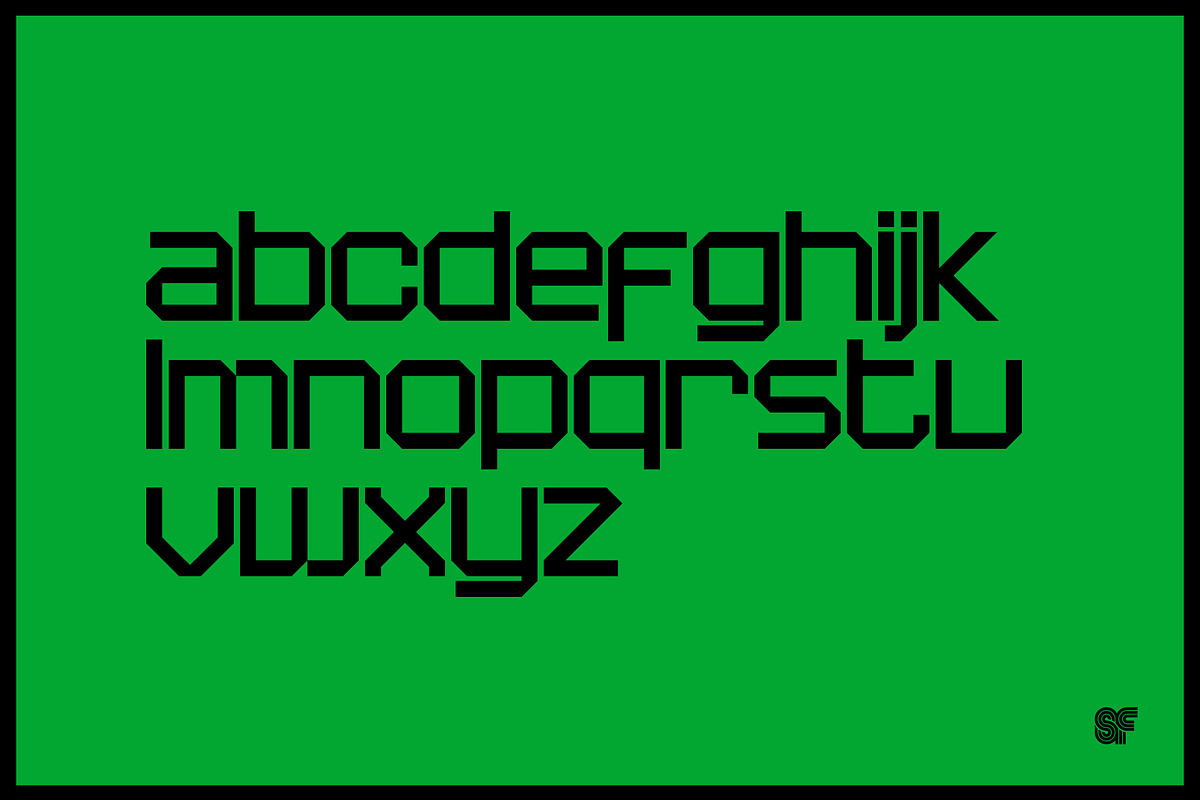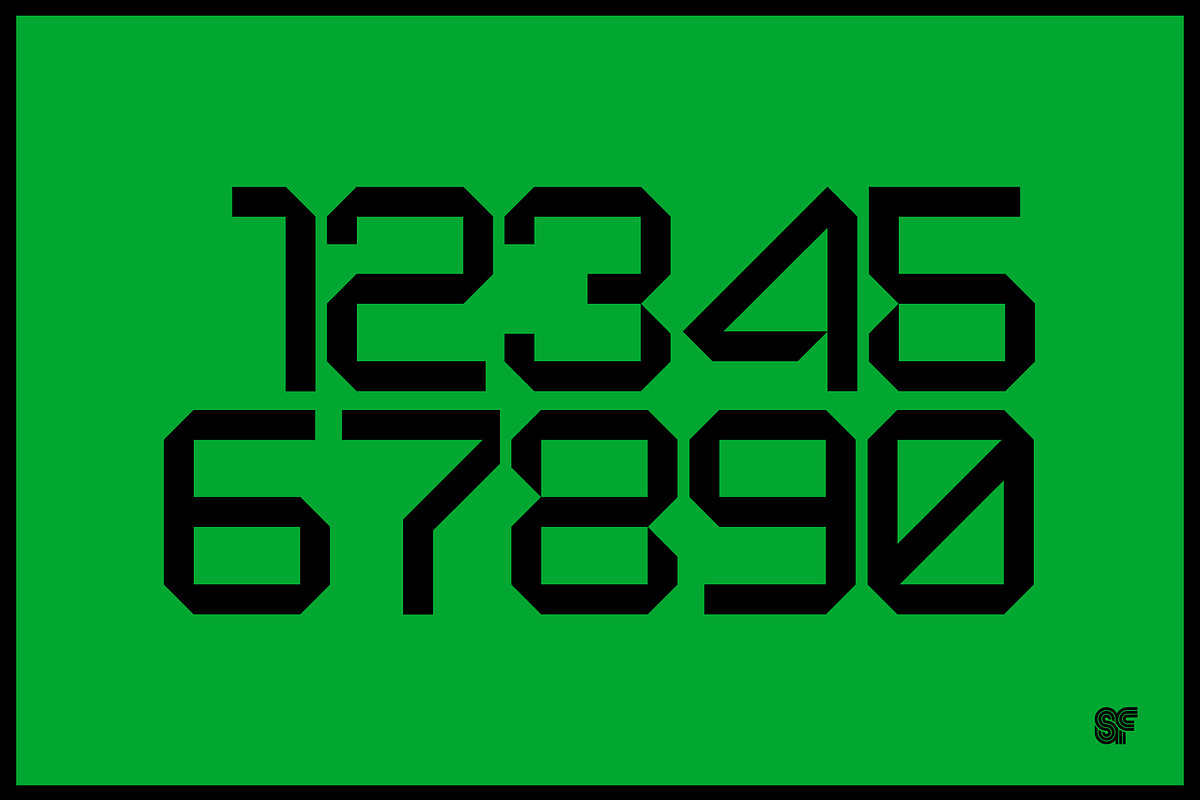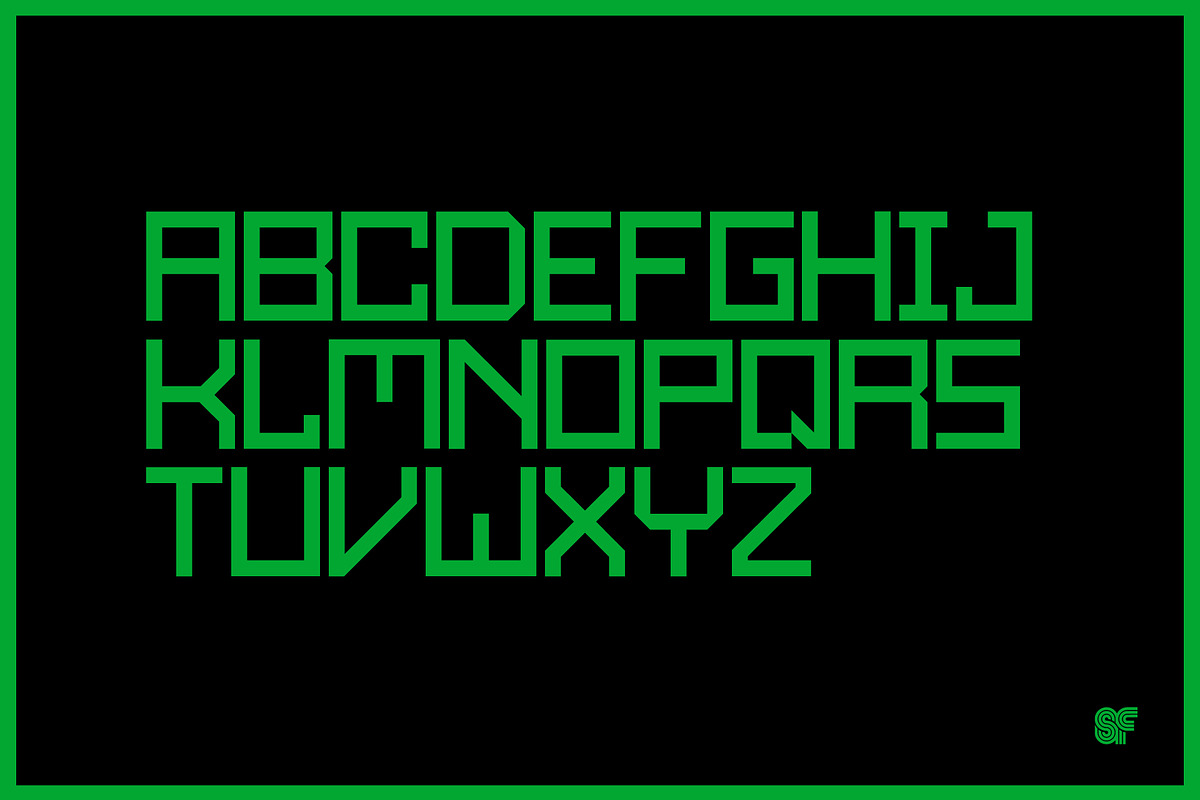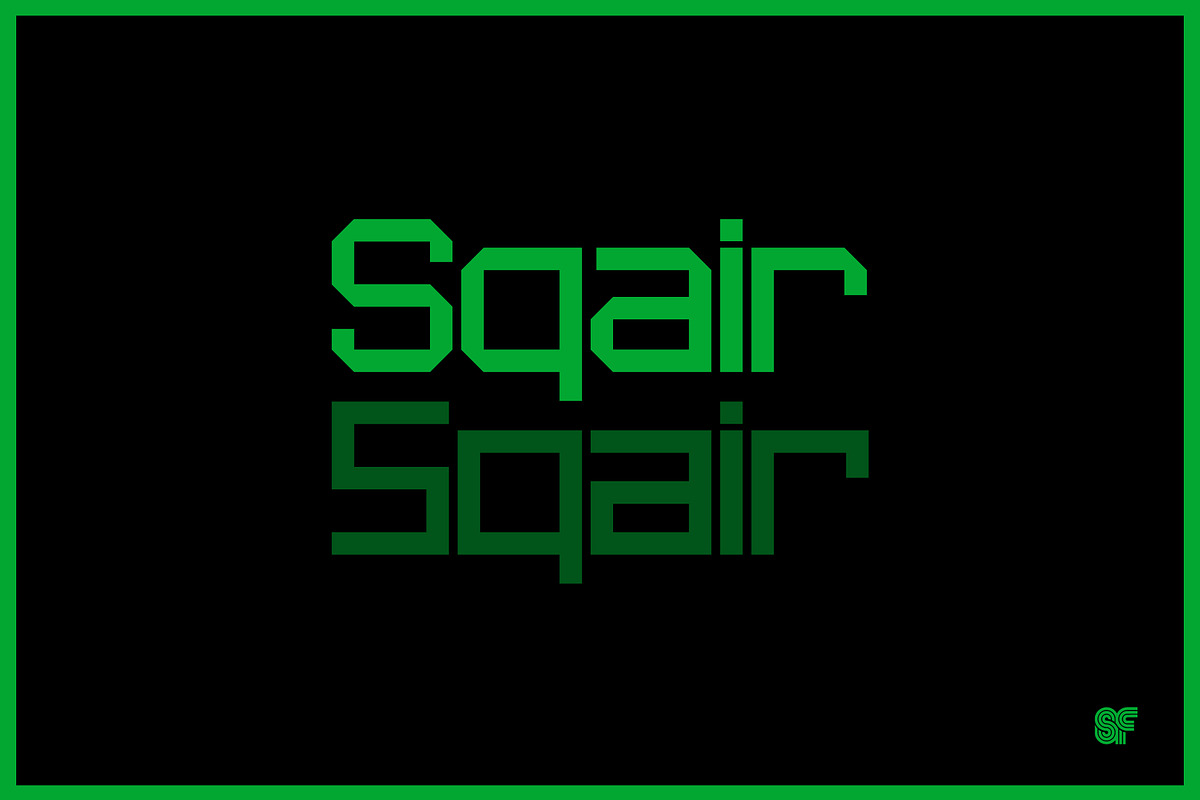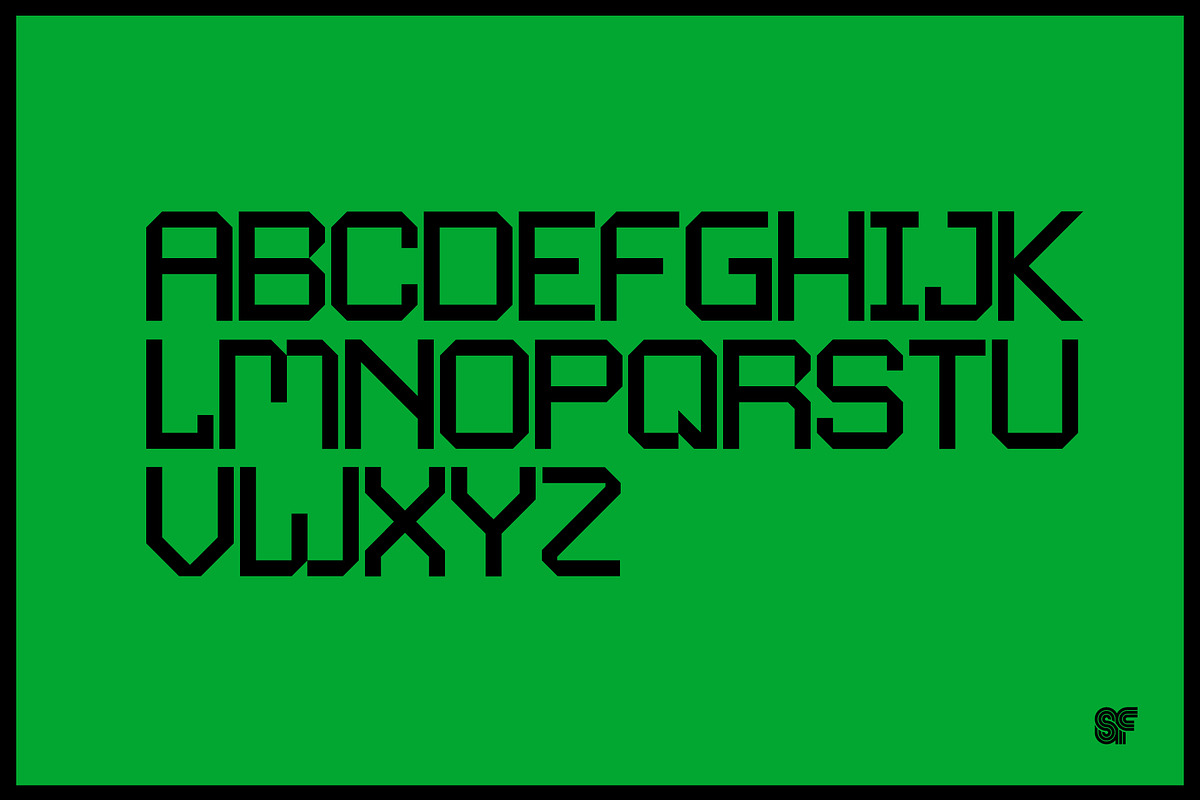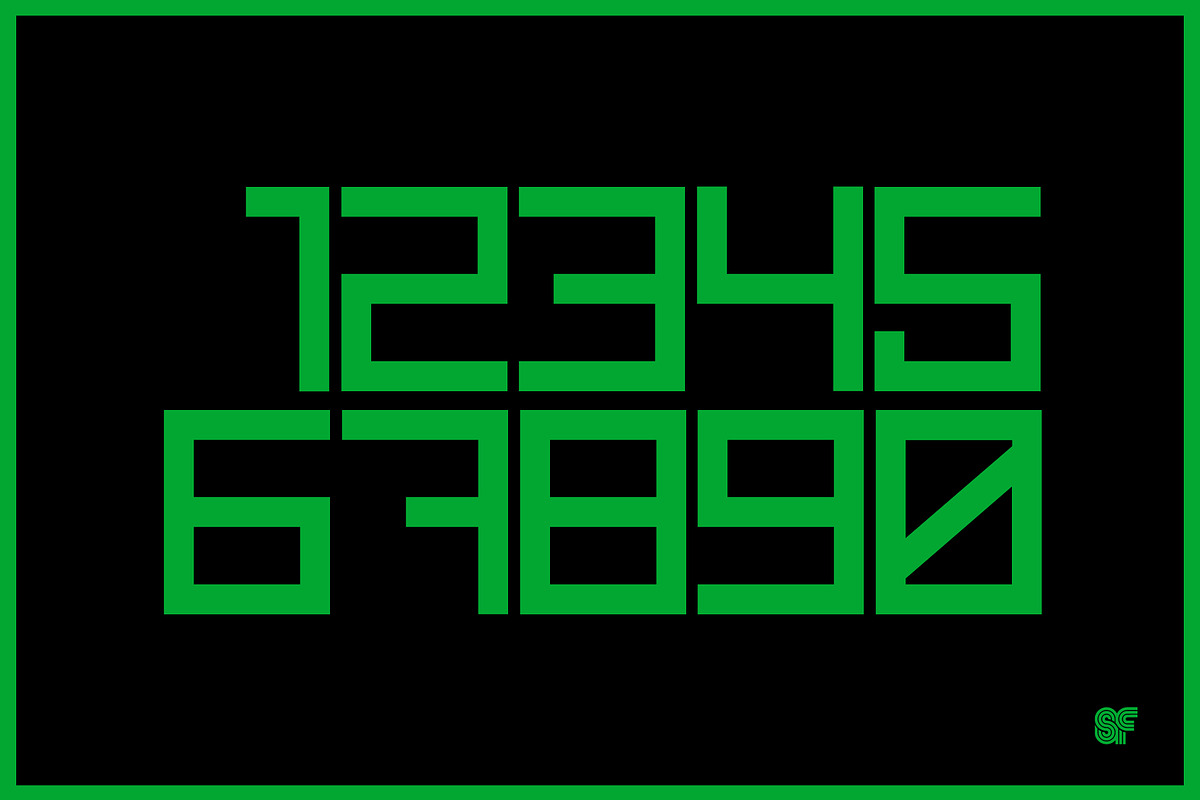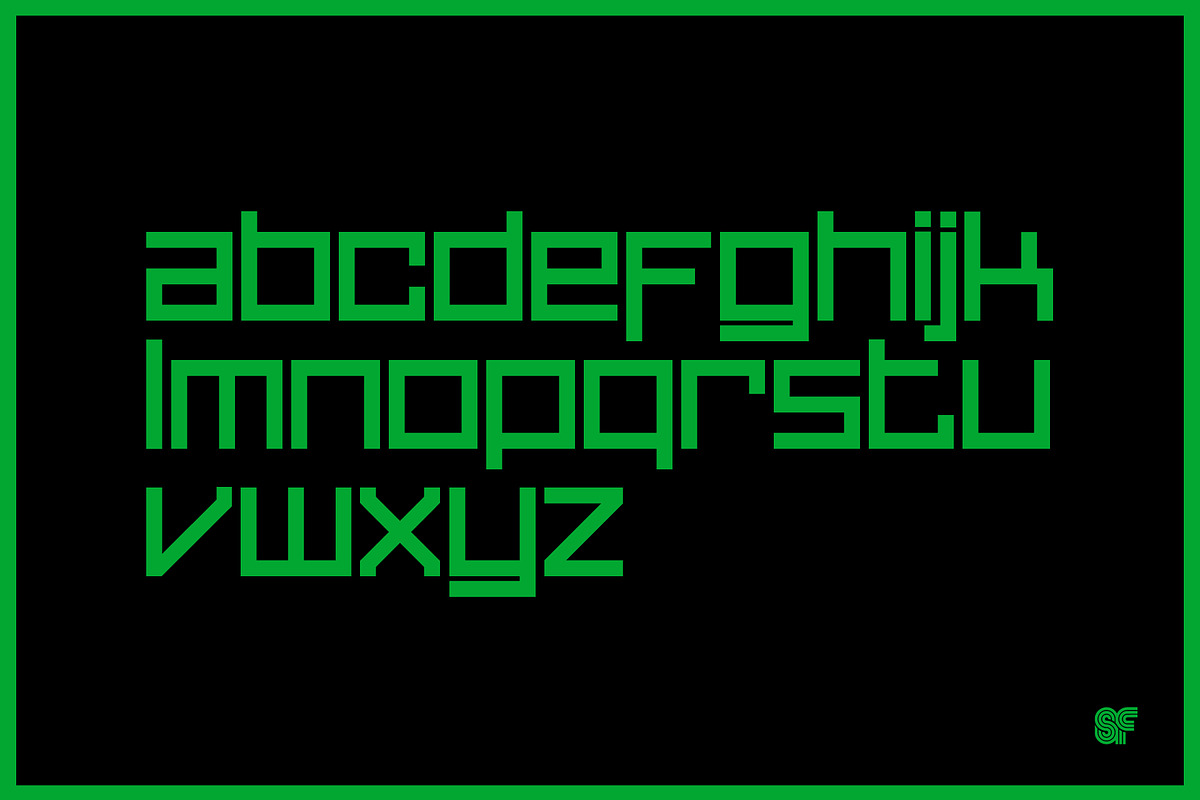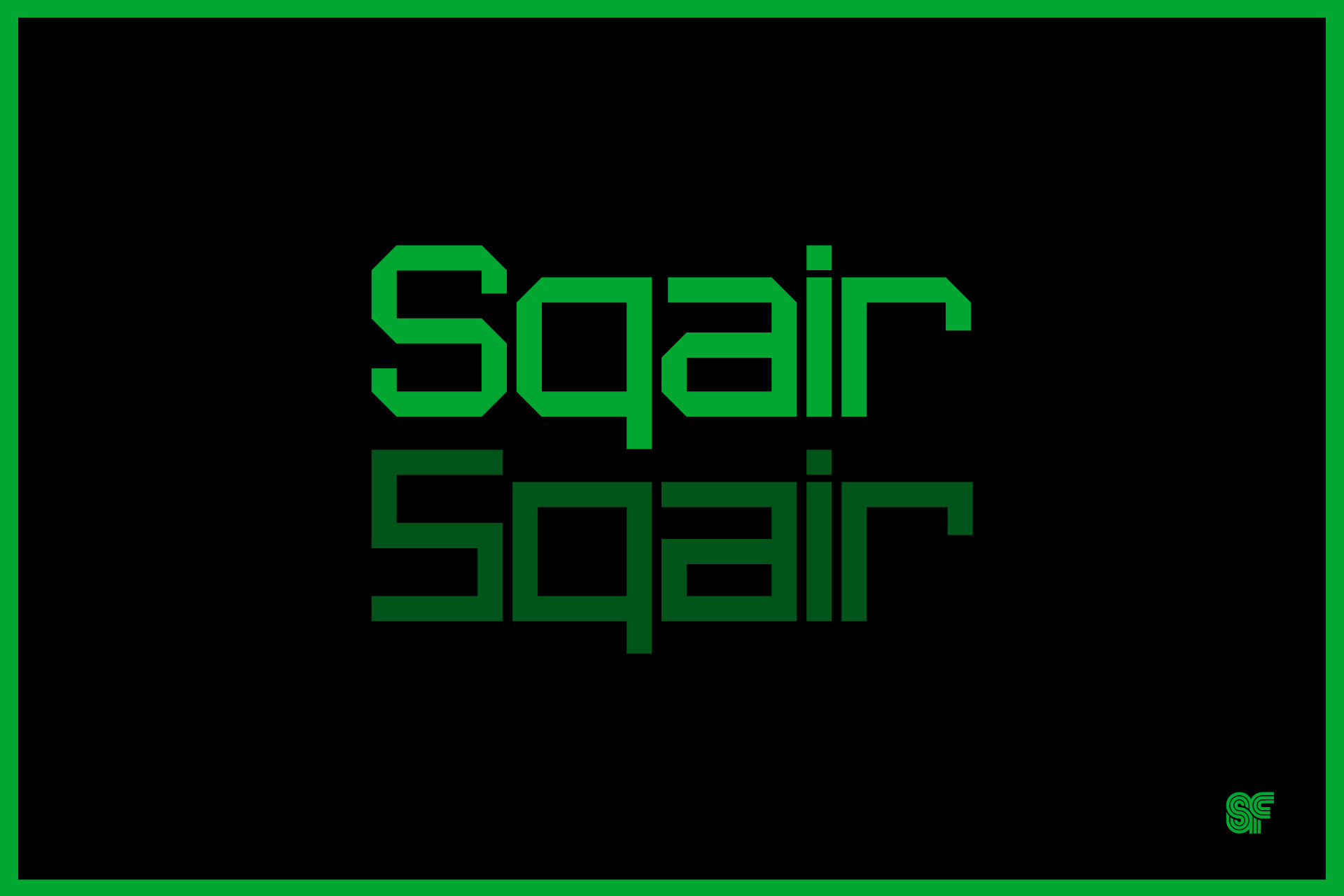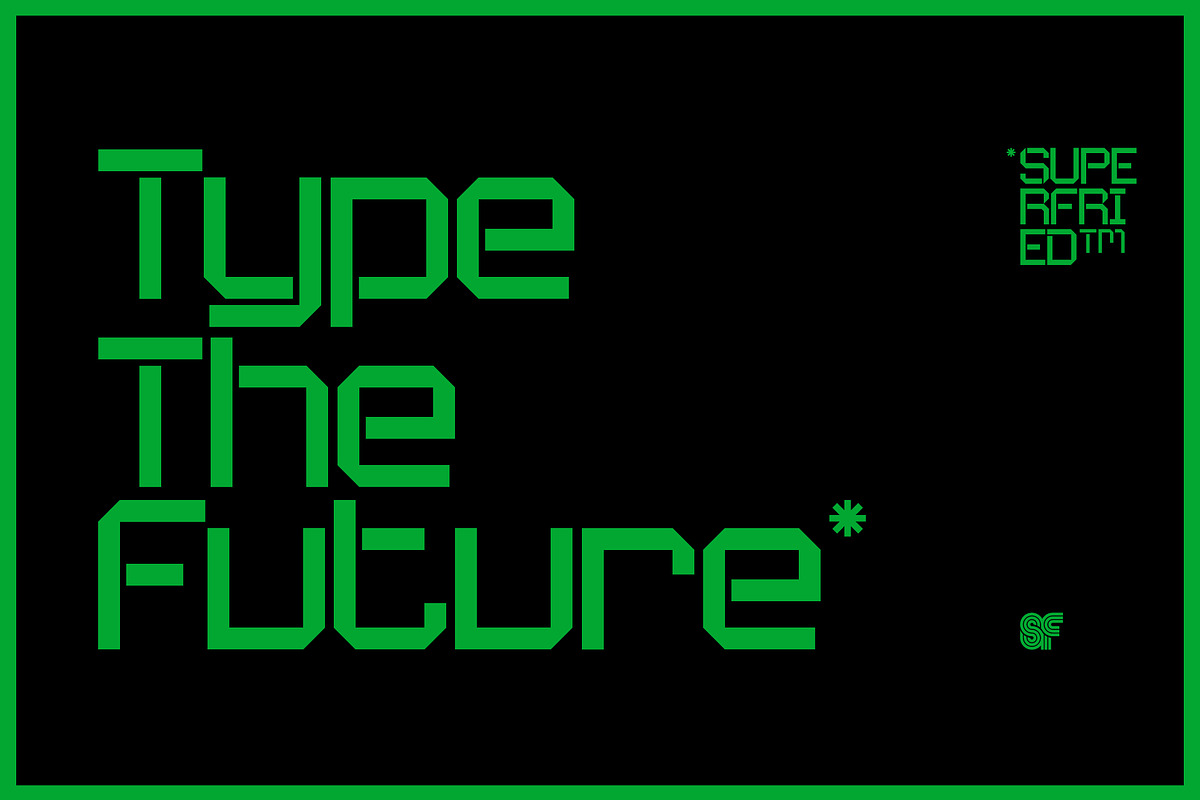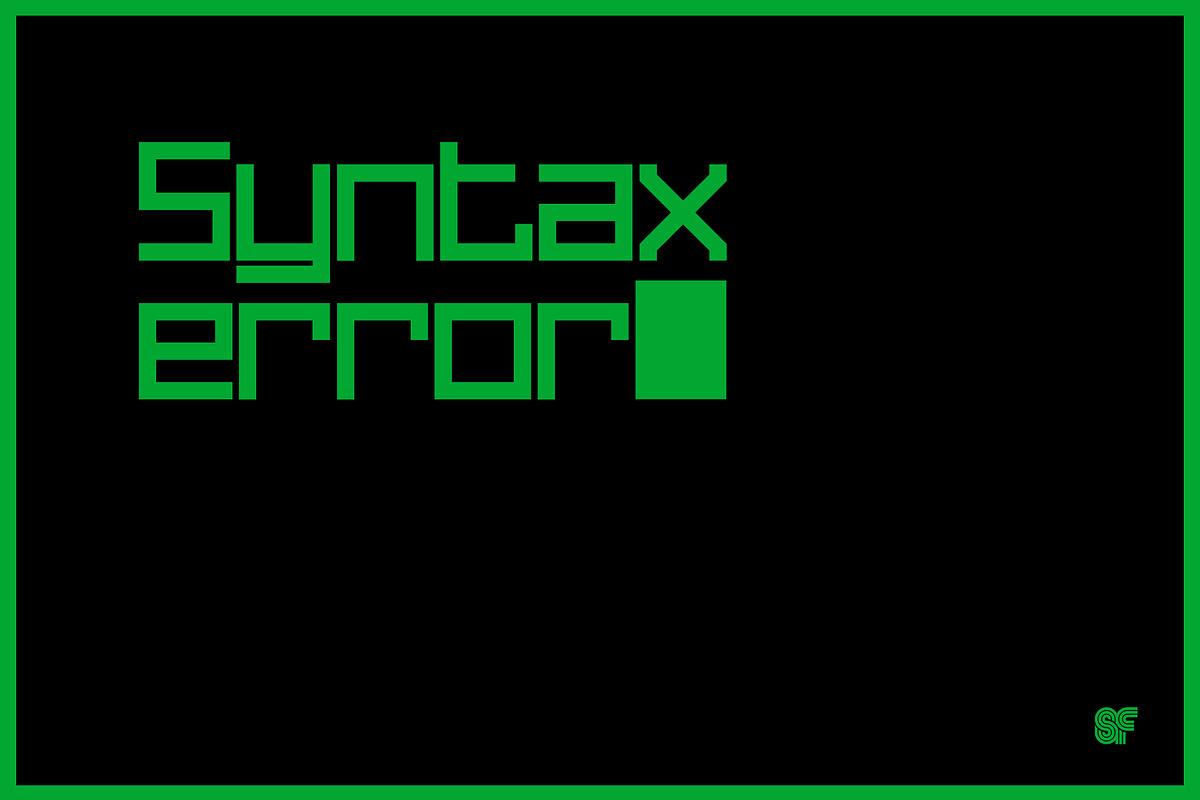
Sqair | Retro Sans | 4 Fonts
NEW - Remastered for 2025!
Originally developed in 2011 by Superfried, this experimental display typeface is inspired by the iconic Sinclair Spectrum logo, evoking a sense of nostalgia for technology enthusiasts. Sqair is versatile, available in four unique styles: display, display stencil, retro, and retro stencil, making it perfect for branding, web design, and editorial projects. The 2025 remaster includes two new font styles, meticulously re-drawn characters, and enhanced spacing for improved readability and aesthetic appeal. Elevate your design projects with Sqair's distinctive character and modern updates, ideal for any technology-themed application.